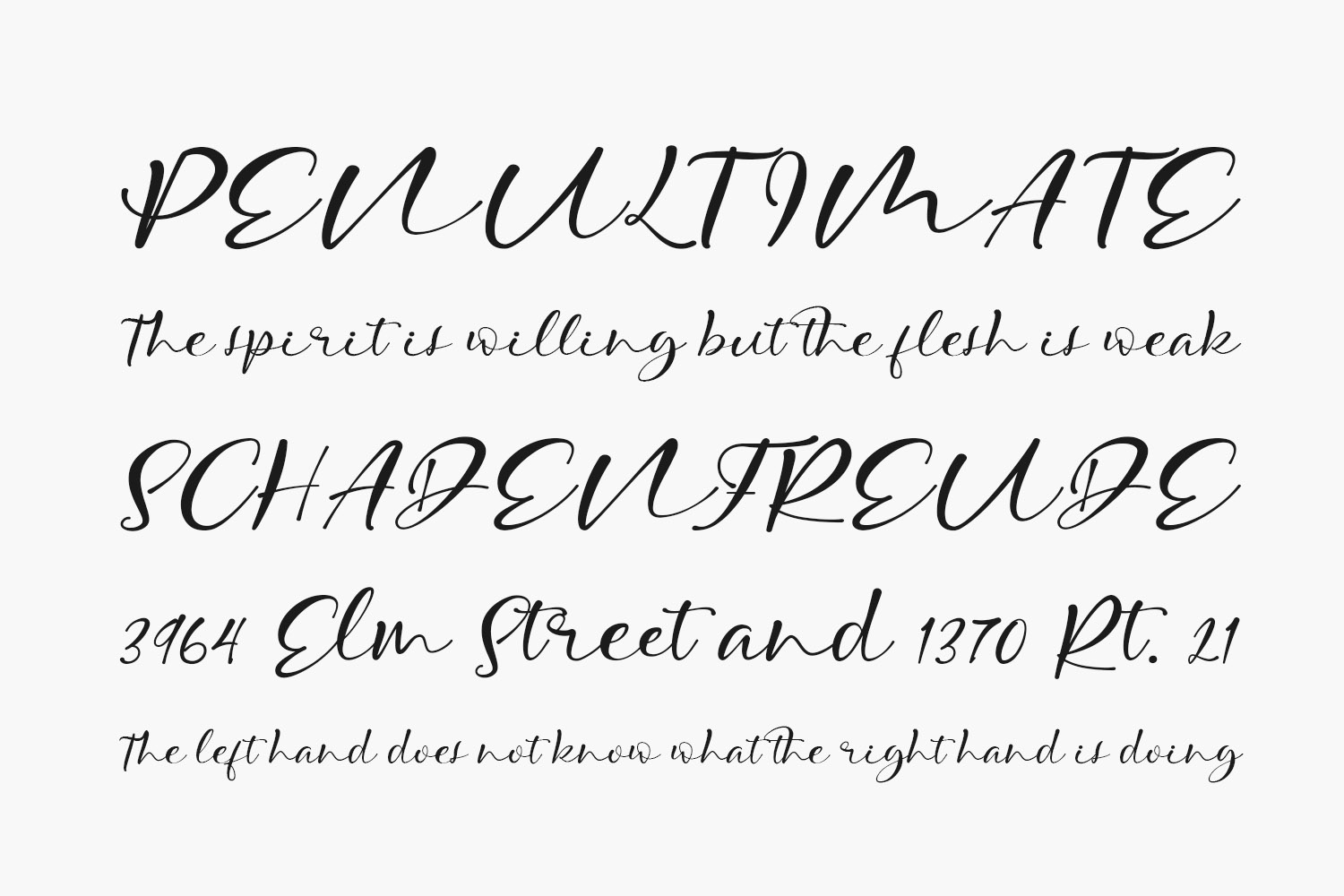
Malona Free Font feels equally timeless and elegant. It looks lovely on wedding invitations, thank you cards, quotes, greeting cards, logos, business cards, and every other design which needs a handwritten touch. Malona Free Font was designed by Lemonthe and is free for personal use only. Please purchase the full version for commercial use.